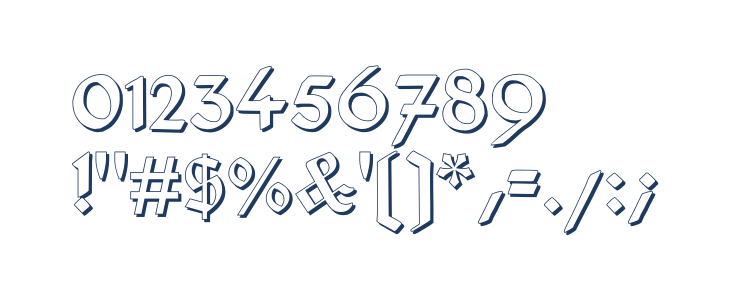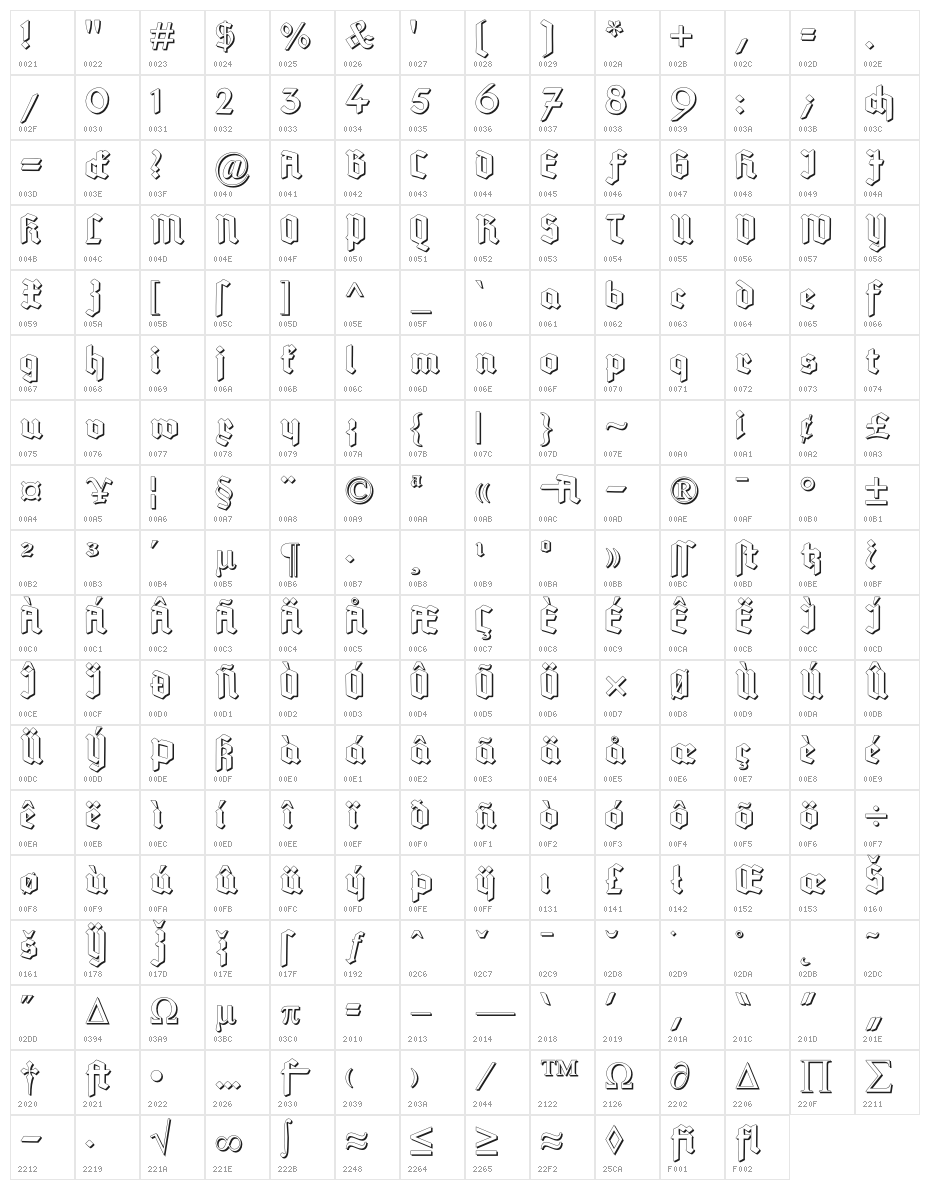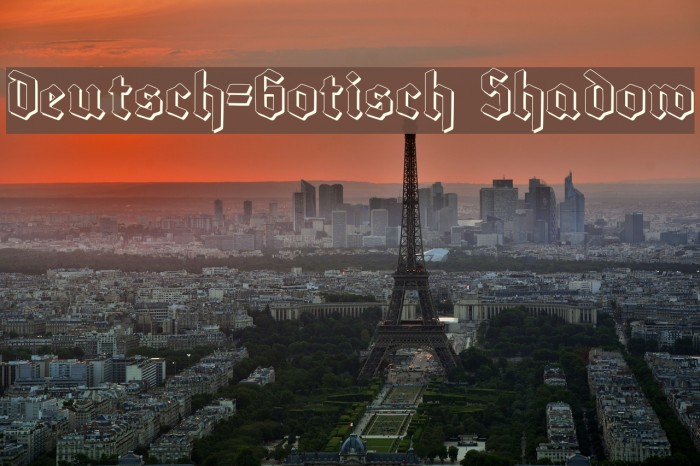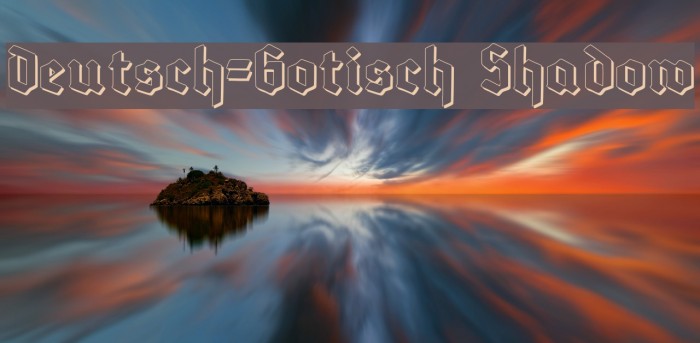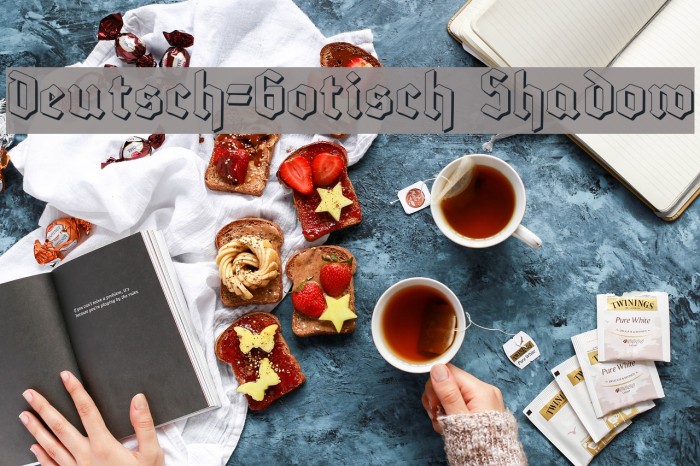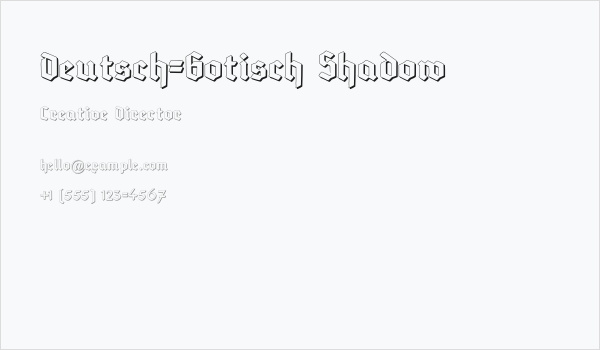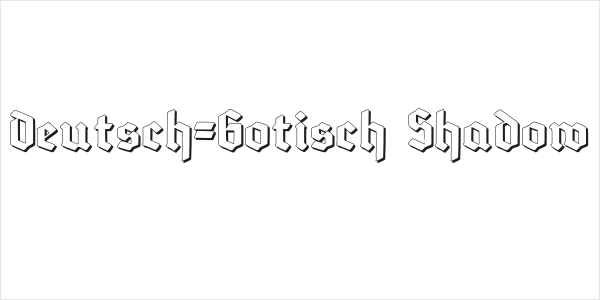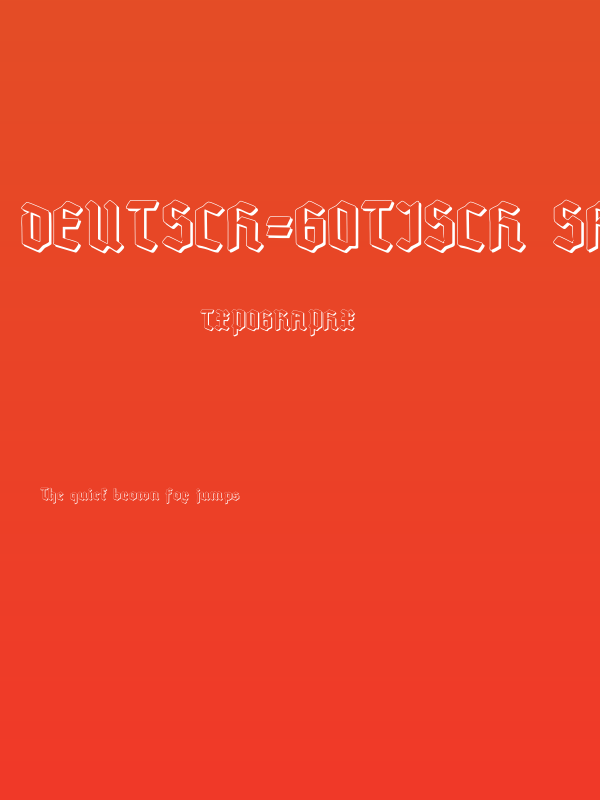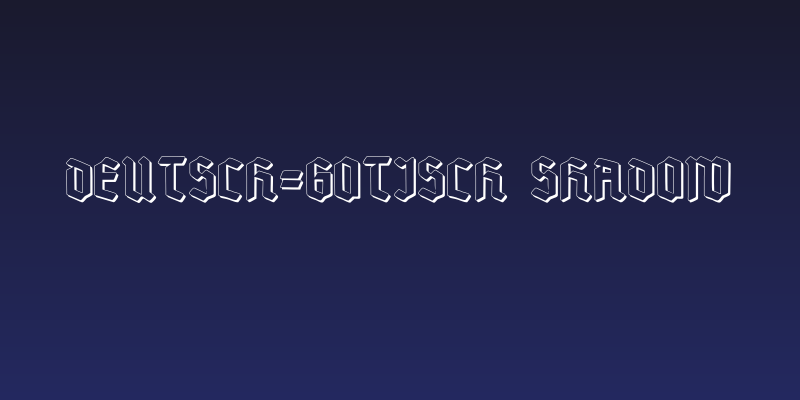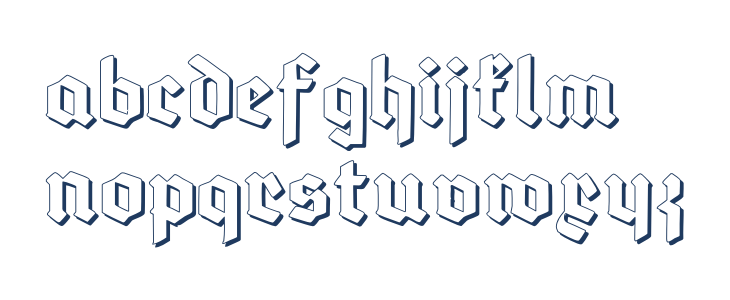
Deutsch-Gotisch Shadow Font
Deutsch-Gotisch Shadow Description
This font features a bold and dramatic style with a shadow effect that gives each character a three-dimensional appearance. The letters are reminiscent of traditional Gothic script, characterized by sharp angles and intricate details. The uppercase and lowercase letters maintain a consistent style, with a strong emphasis on vertical lines and pointed serifs. The numerals and special characters are designed to match the ornate and shadowed aesthetic, making them stand out with a distinct presence. This font is ideal for creating a striking visual impact, suitable for projects that require a historical or medieval touch.
| Use Case | Headlines, Logos, Decorative text |
| Proposed Projects | Ideal for historical-themed designs, book covers, posters, and branding that requires a medieval or dramatic flair. |